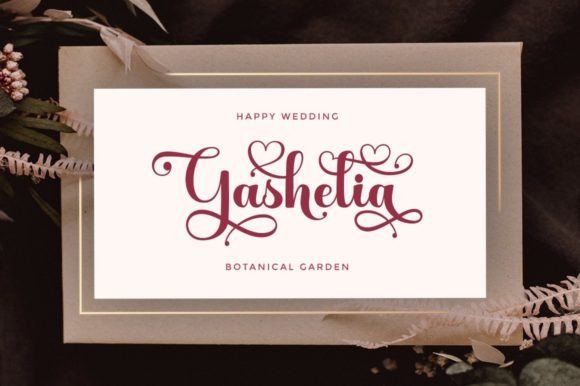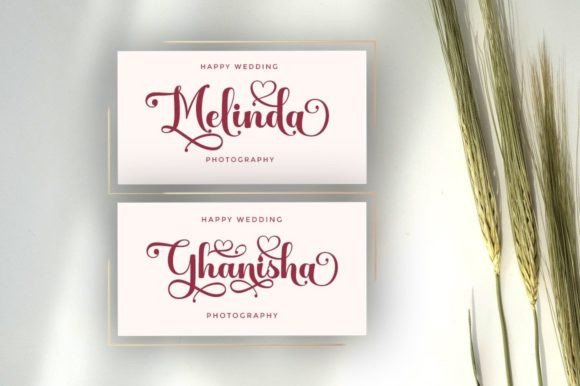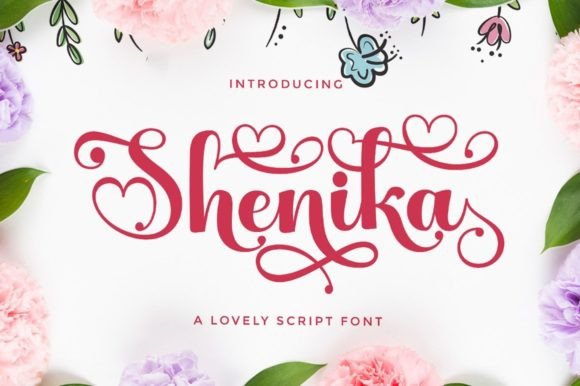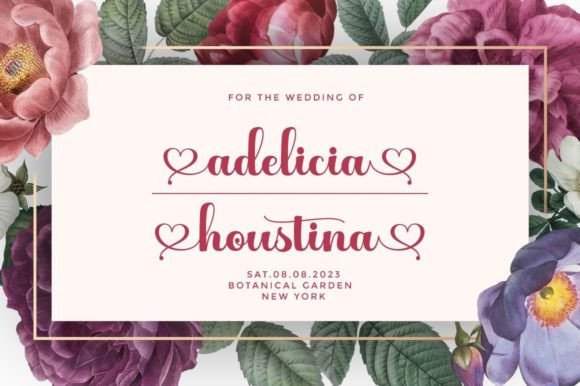
Shenika Font: Cute Heart Script for Wedding & Craft DIY Projects
About the Shenika Font
The Shenika Font is here to transform your projects with its distinctive character and style. Shenika is a font with connecting hearts and is great for initials and display projects like magazines and crafts. This lovely font includes a cute heart with each character—awesome for personalized holiday decorations. The font includes many heart illustrations, so you have a wide variety to choose from.